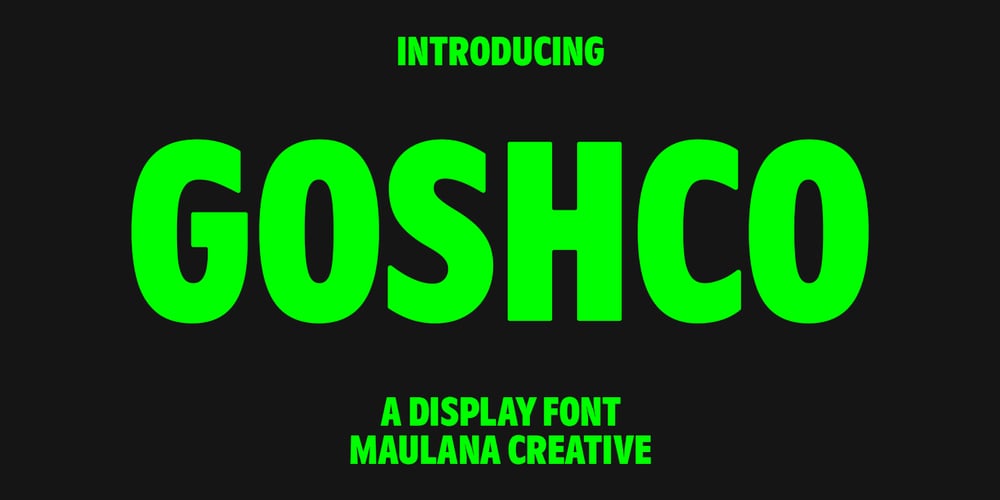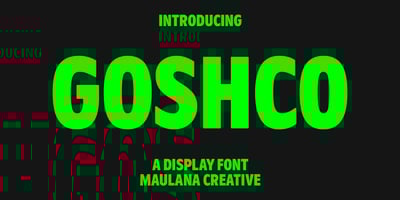
MC Goshco Font Family was designed by Gilang Maulana and published by Maulana Creative. MC Goshco contains 1 styles and family package options. Goshco is a strong look modern display sans serif font. With all caps and bold stroke, fun character with a bit of ligatures and alternates. To give you an extra creative work. Goshco font support multilingual more than 100+ language. This font is good for logo design, Social media, Movie Titles, Books Titles, a short text even a long text letter and good for your secondary text font with script or serif. Make a stunning work with Goshco font. Cheers, Maulana Creative